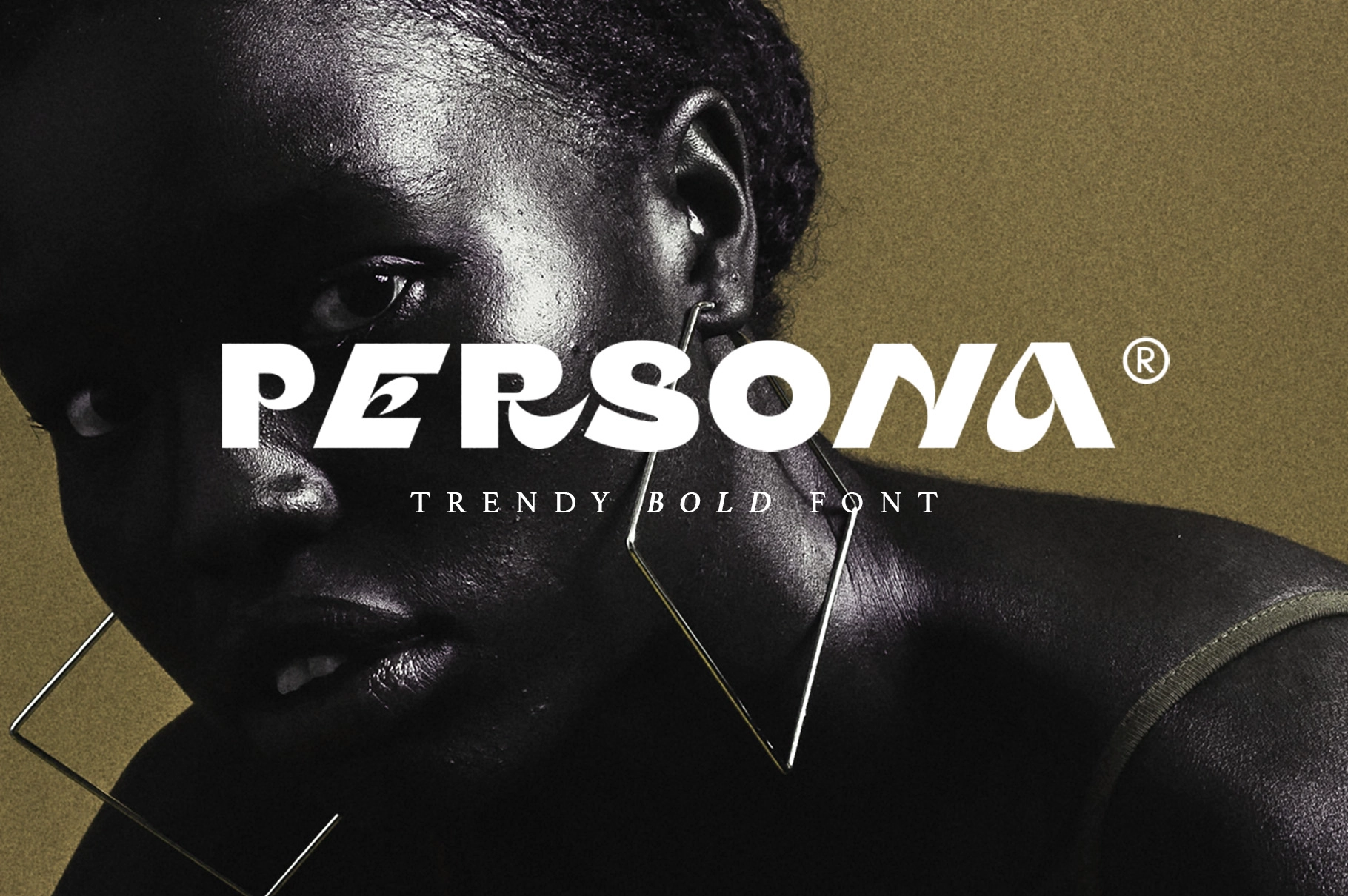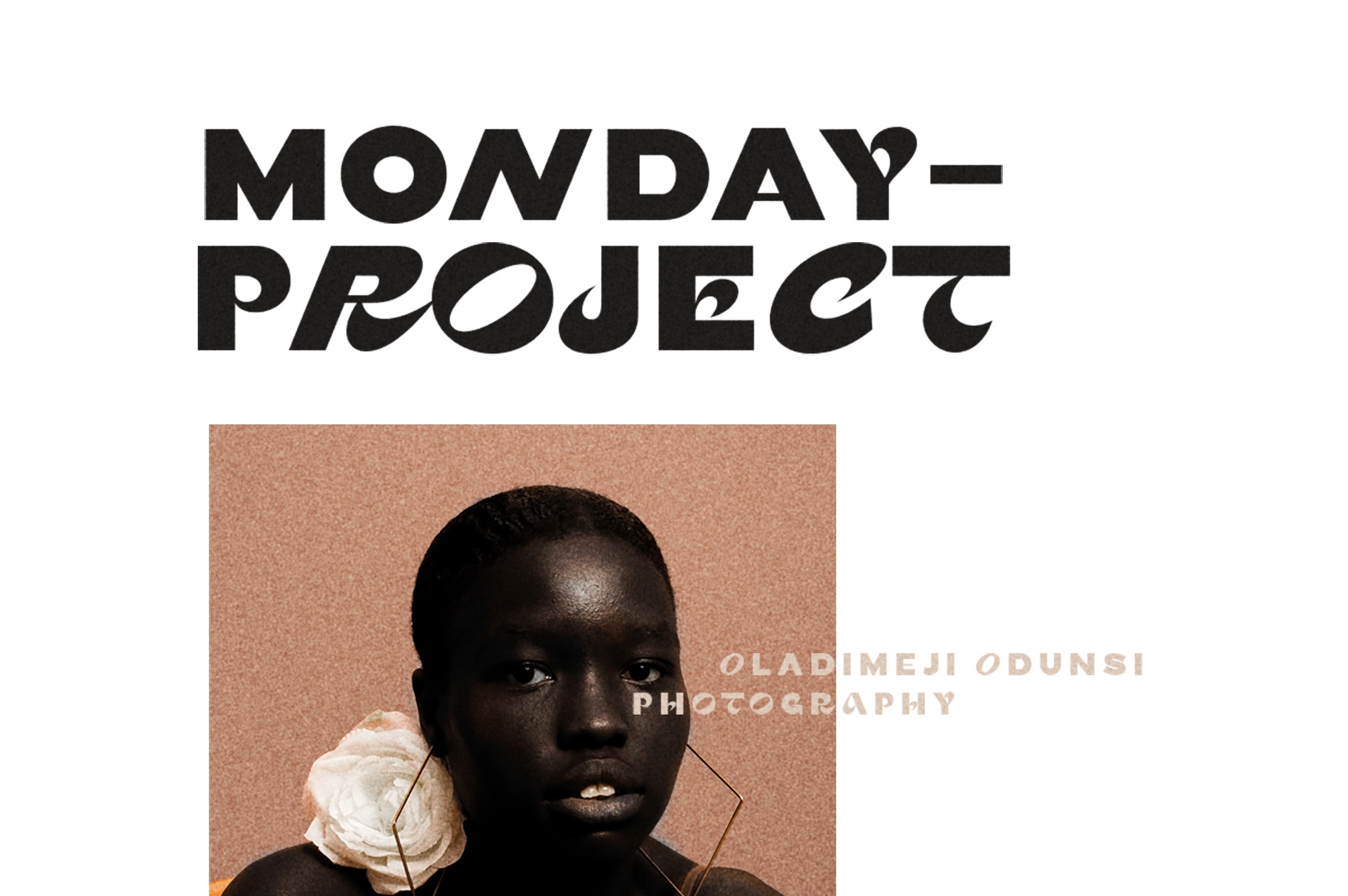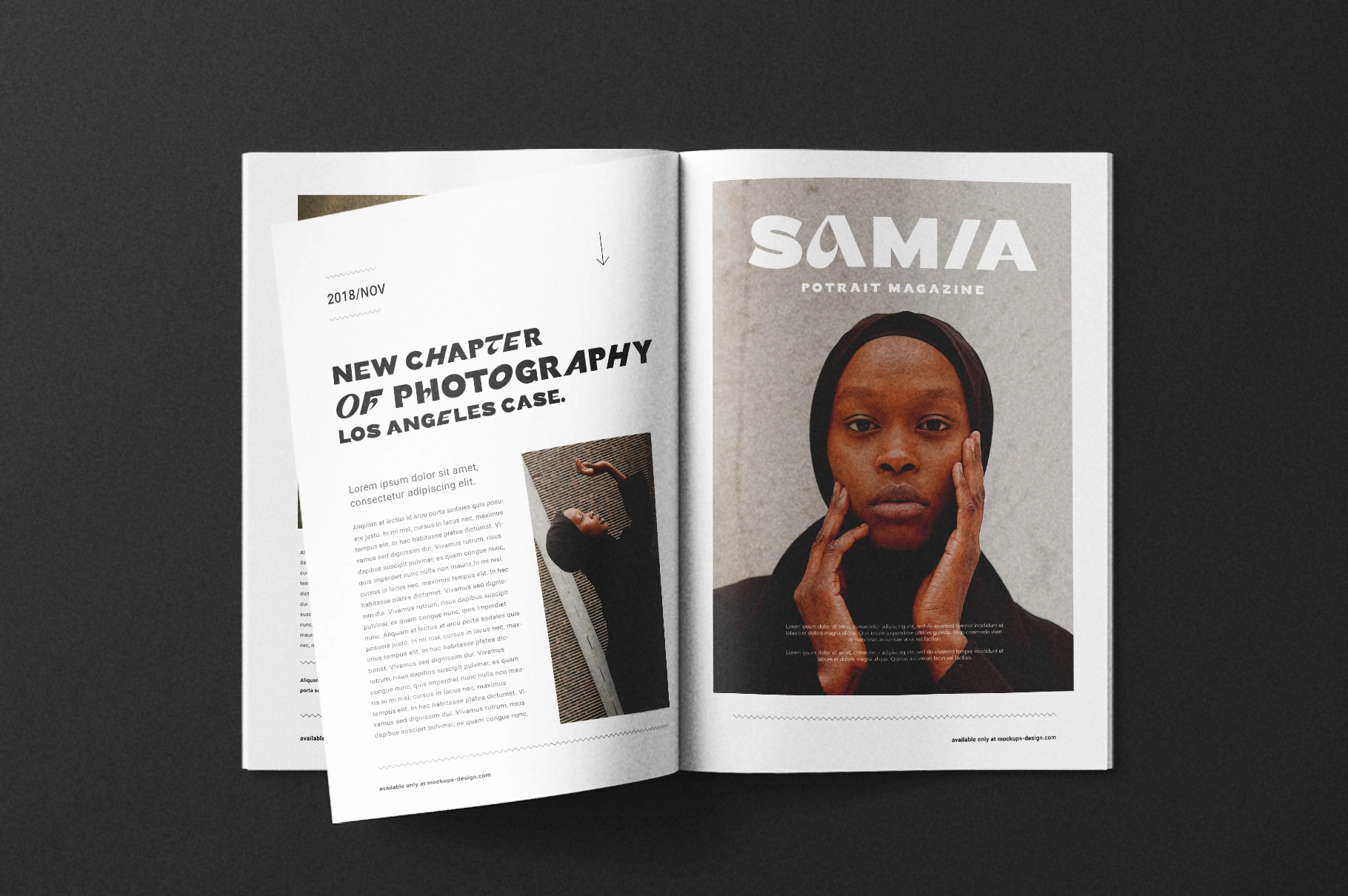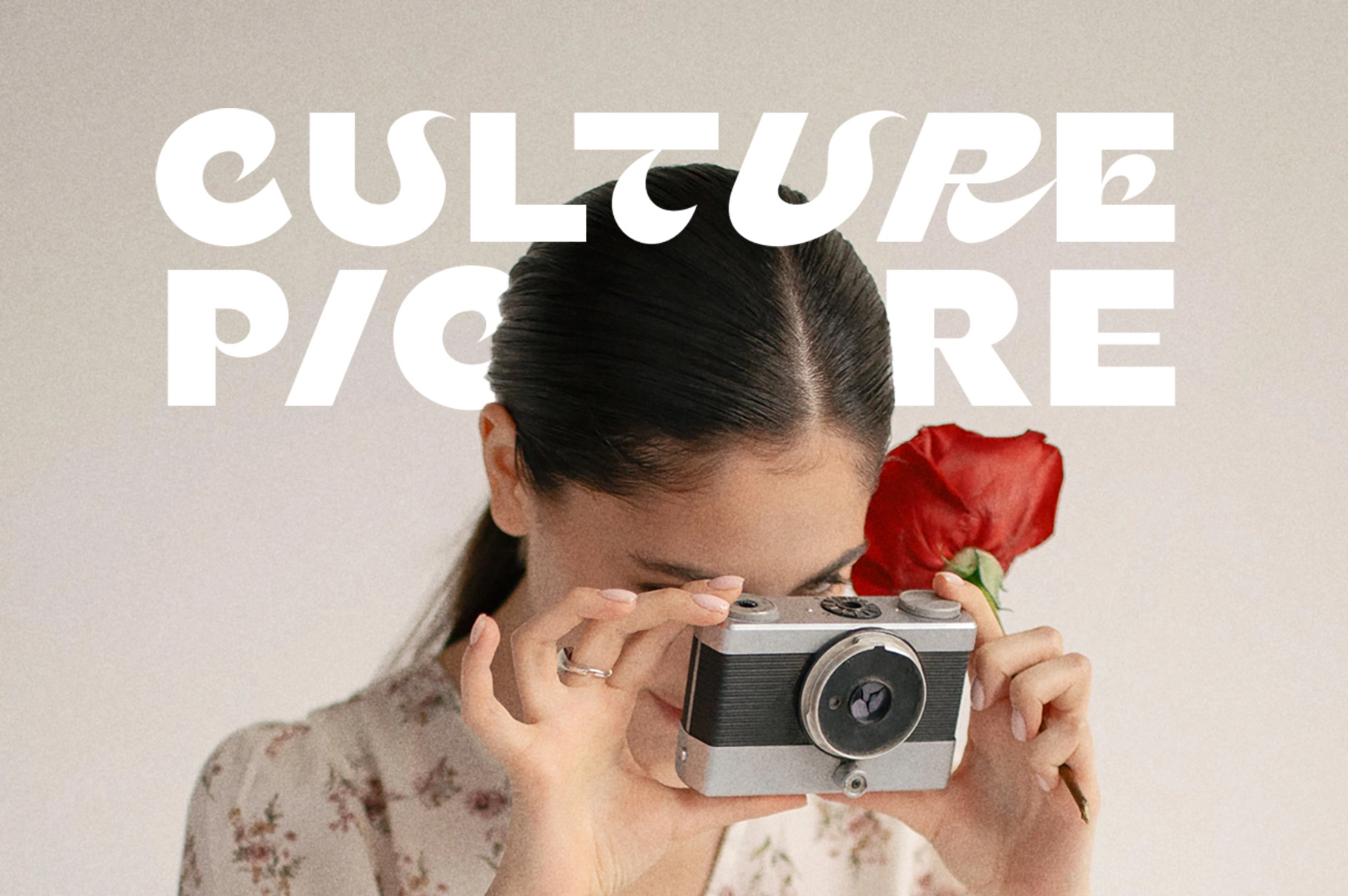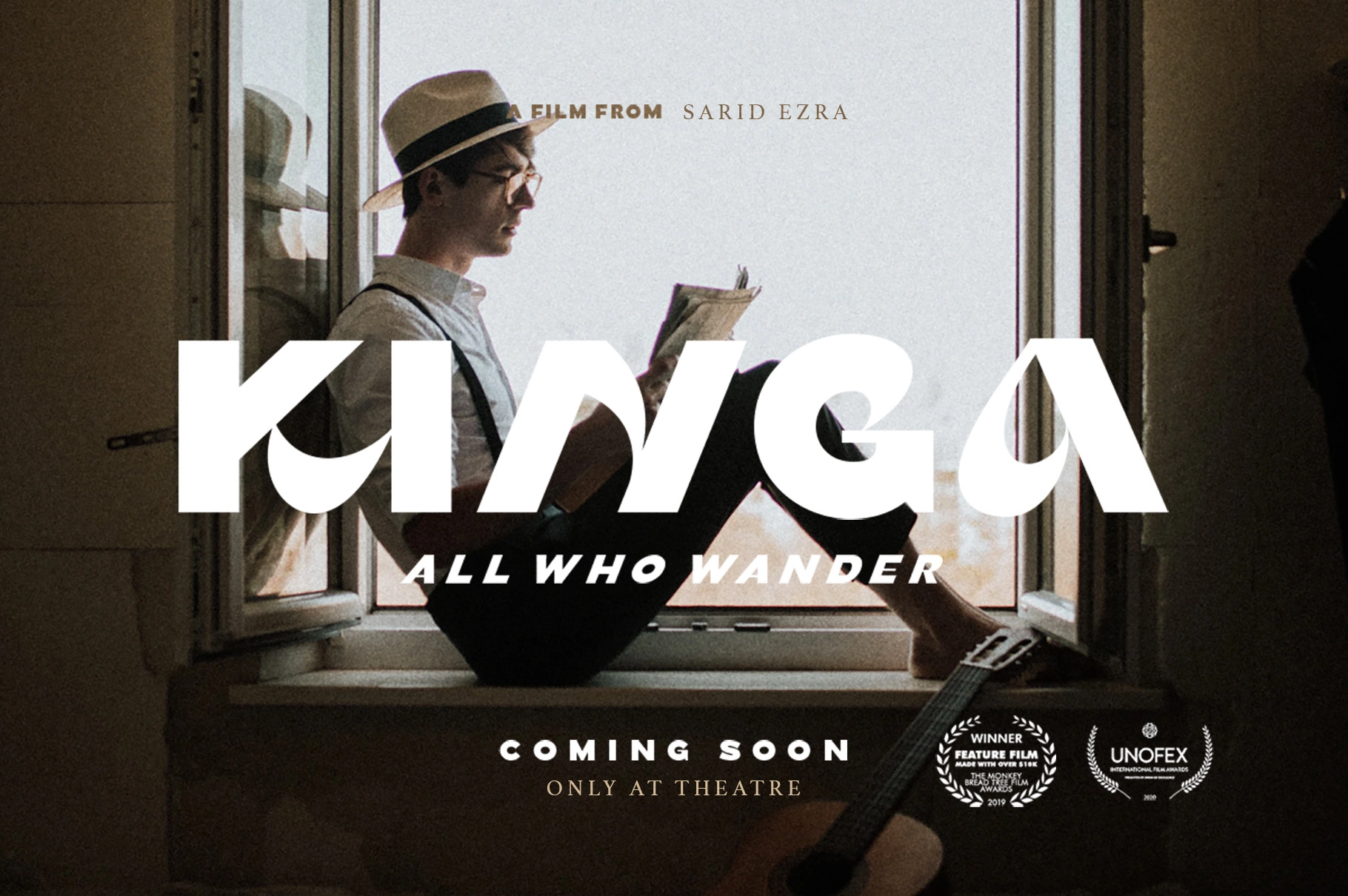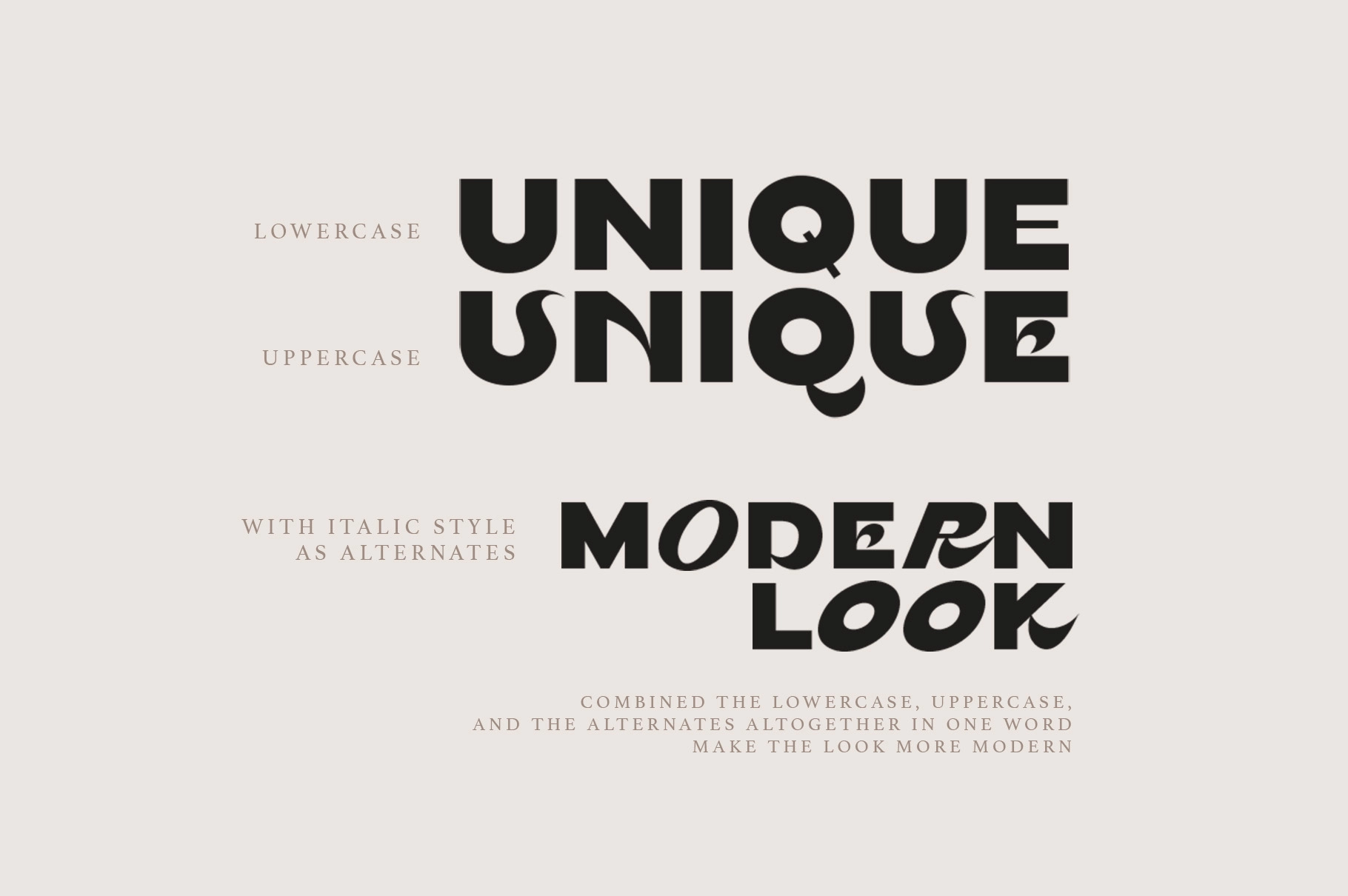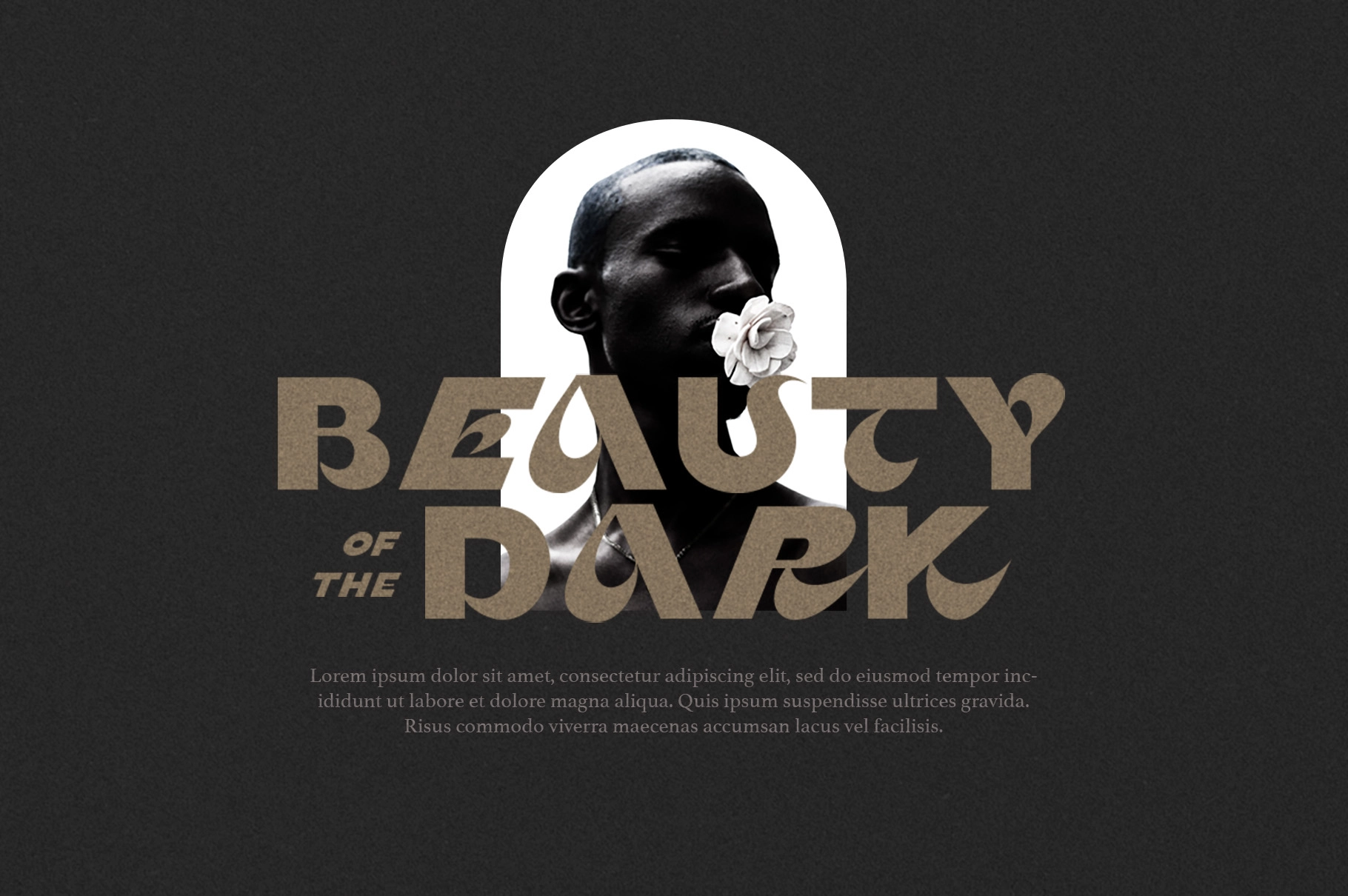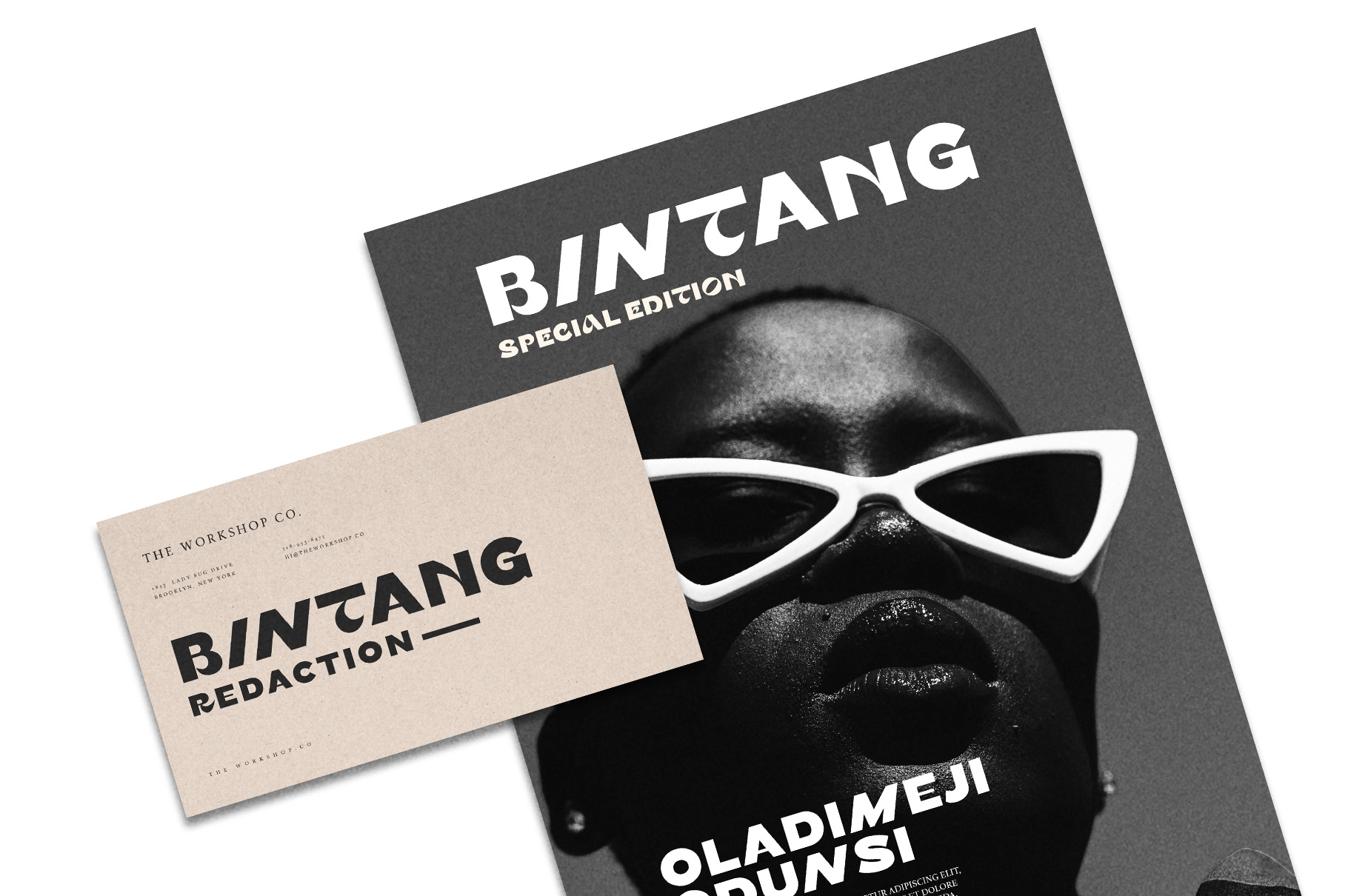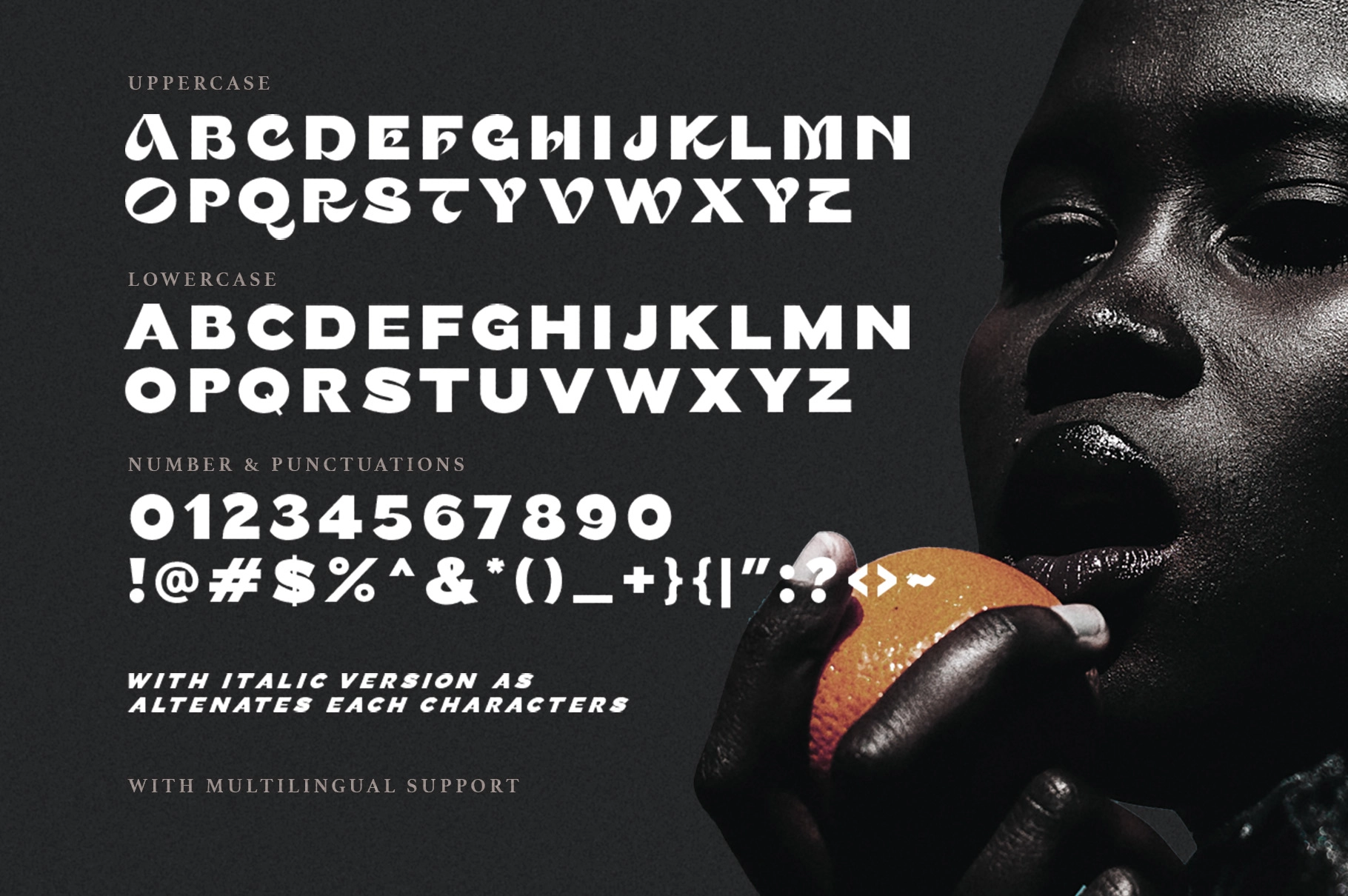
Persona - Bold Display Font
Persona
A bold display font with heavy sans shapes, sharp angled cuts, and alternate letterforms that make words look custom without getting fussy. Uppercase and lowercase characters have different structures, so the type can shift from clean and solid to experimental in the same word.
Persona works well for magazine headlines, film titles, posters, fashion campaigns, music artwork, editorial covers, brand marks, lookbooks, social media graphics, event promos, website hero text, merchandise, and visual identity projects that need a strong typographic hook. The italic version can be used as alternates for extra movement, sharper rhythm, and more distinctive lettering combinations.
- Italic version as alternates